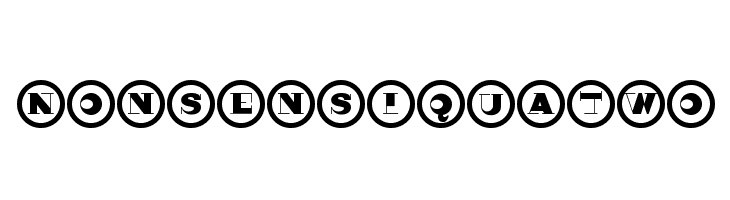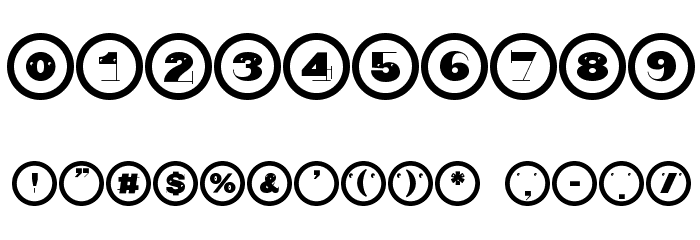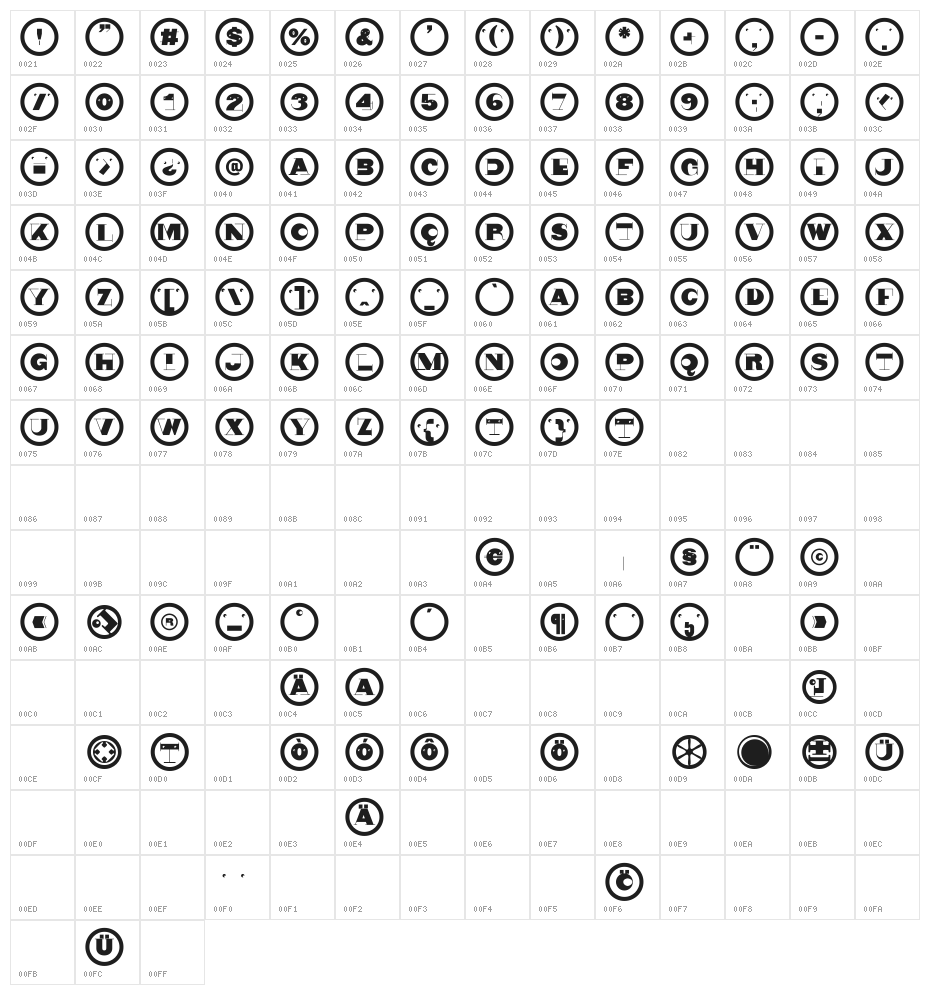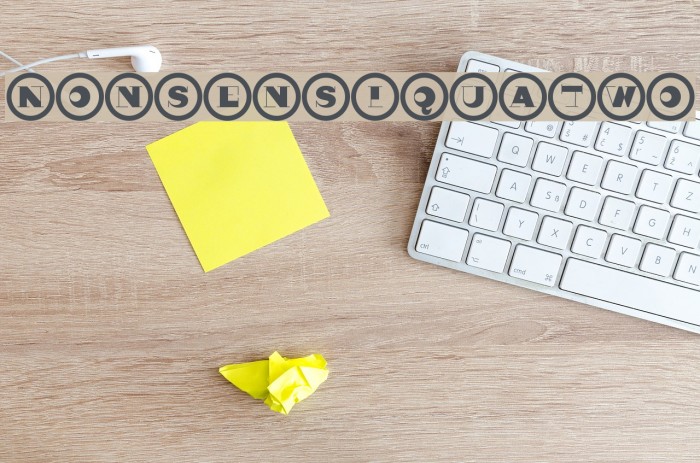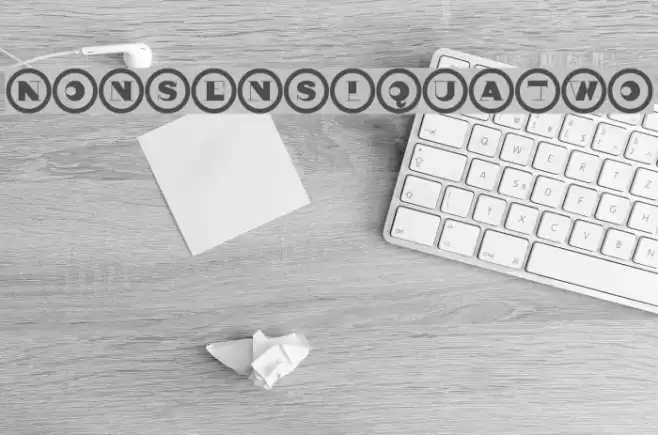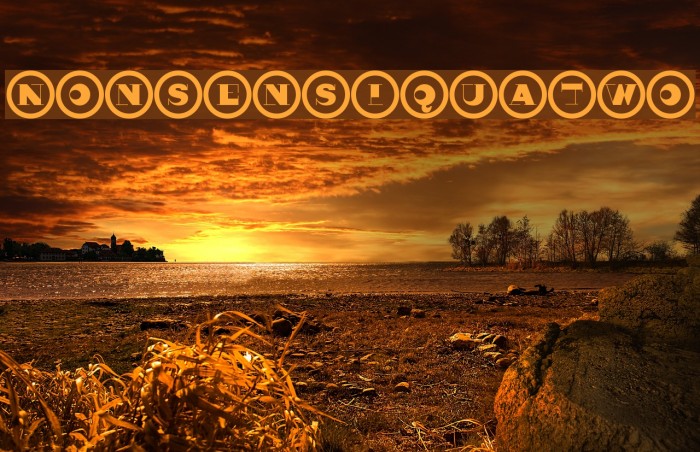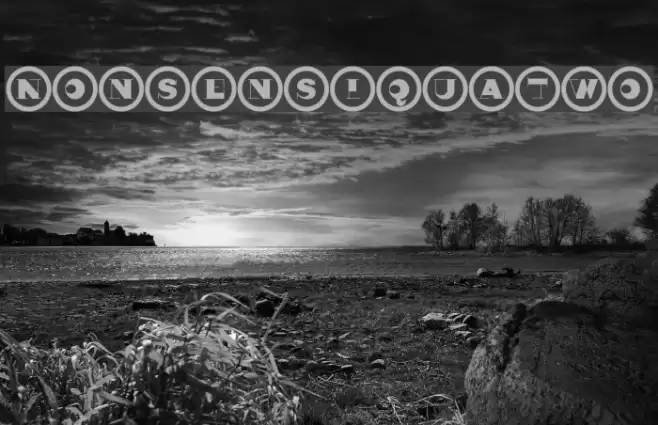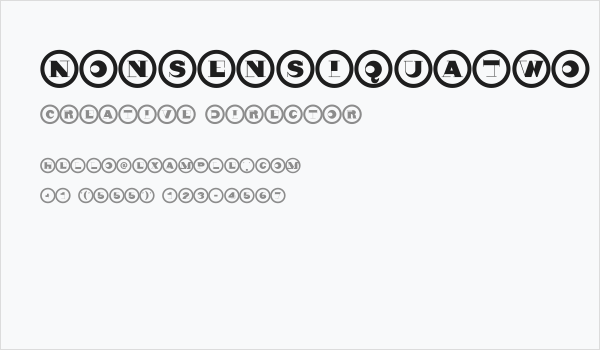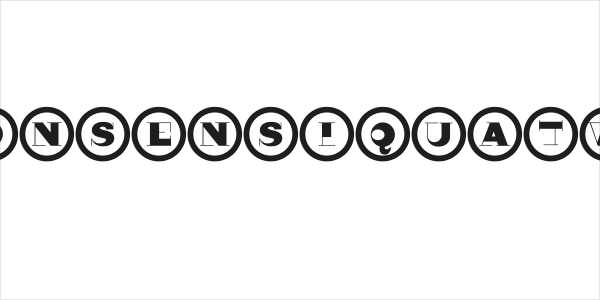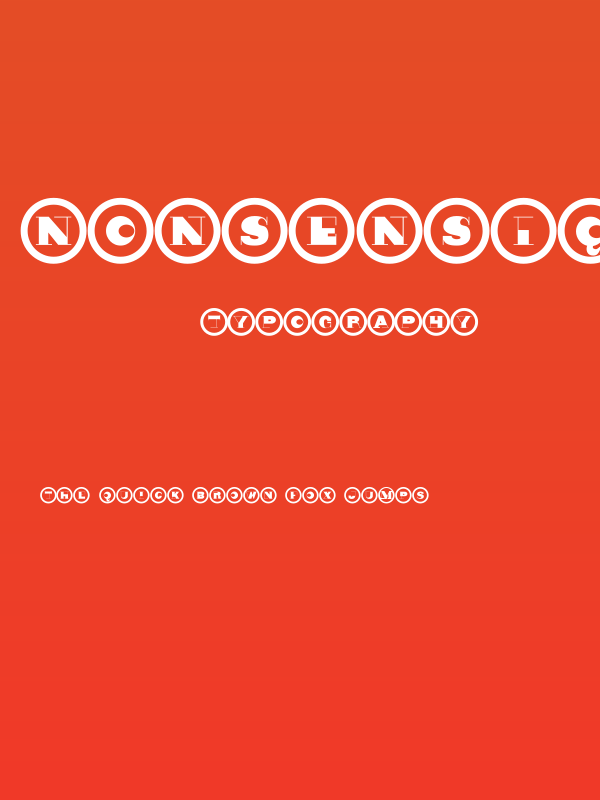
NonsensiquaTwo Font
NonsensiquaTwo Description
This font features bold, uppercase and lowercase letters, numbers, and special characters encased in circular outlines. The characters are centered within these circles, creating a unique and eye-catching design. The font has a playful and modern aesthetic, with each letter and number distinctly separated by the circular boundary. This design choice gives the font a decorative and display-oriented style, making it suitable for projects that require a standout visual element. The consistent use of circles around each character adds a uniformity that enhances its decorative appeal.